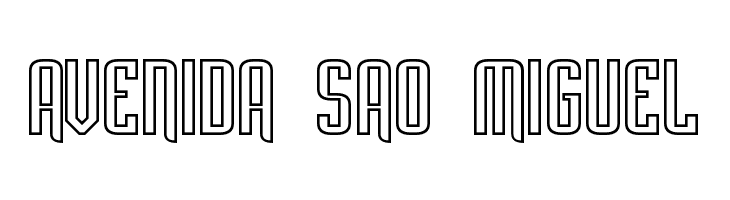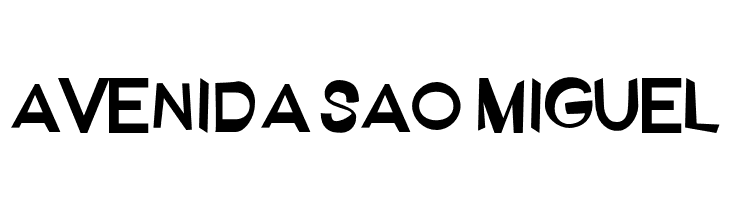
A modern, ultra-thin italic font with a futuristic, electronic style.
A playful, circuit-inspired font with bold, rounded lines and circular nodes.
A bold, geometric font with sharp angles and a modern aesthetic.
A bold, geometric font with sharp, angular lines and a modern aesthetic.
A bold, angular font with a geometric and modern design.
A bold, angular font with a geometric and modern style.
A bold, geometric font with a digital, pixelated style.
A bold, condensed font with high contrast and elongated characters.
A bold, brush-style font with a hand-drawn, artistic look.
A geometric, minimalist font with a futuristic and angular design.
A bold, elegant script font with flowing curves and dynamic slant.
A modern, elegant font with slight stroke contrast and excellent readability.
A modern, elegant font with geometric and humanist elements.
A modern serif font with elegant proportions and excellent readability.
A modern, elegant font with a clean and sophisticated design.
A modern, semi-bold font with elegant proportions and slight stroke contrast.
A clean, modern semi-bold font with a balanced and readable design.
A playful, bold font with dynamic and whimsical character shapes.
A bold, modern italic font with a dynamic slant and consistent stroke width.
A bold, geometric font with a modern and uniform design.
A bold, geometric font with thick strokes and squared edges, ideal for impactful designs.
A bold, italicized font with a modern, dynamic, and slightly condensed style.
A bold, extended, and modern geometric font with strong visual impact.
A bold, extended, and geometric font with a modern style.
A bold, italicized, and extended font with a modern and dynamic style.
A bold, extended italic font with a modern and dynamic style.
A bold, extended outline font with a modern and geometric style.
A modern, extended outline font with an italic slant, perfect for dynamic designs.
A bold, italic font with elongated, slanted letterforms and consistent stroke thickness.
A bold, outlined font with a modern and geometric style.
A bold, outlined, italic font with a modern and dynamic style.
A bold, geometric font with sharp angles and a modern style.